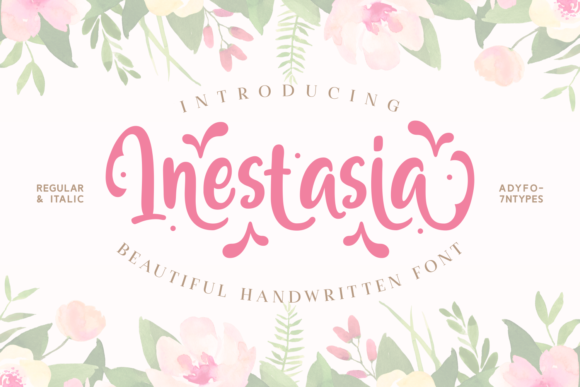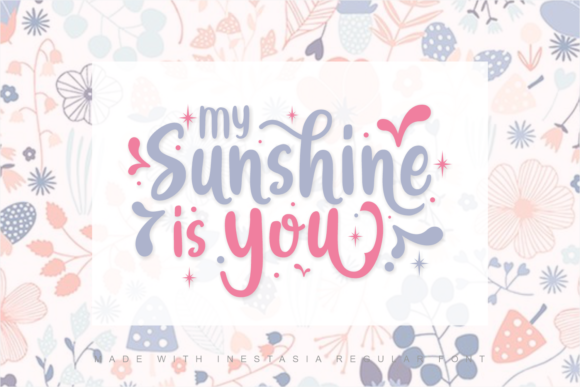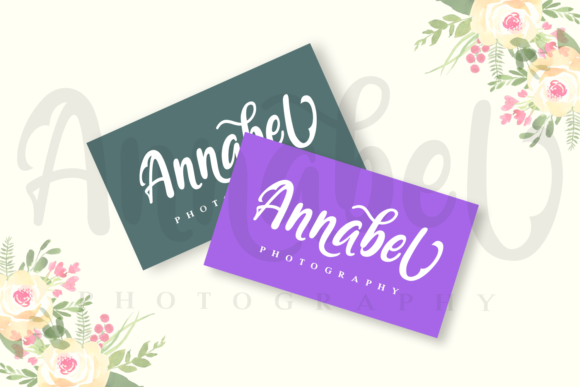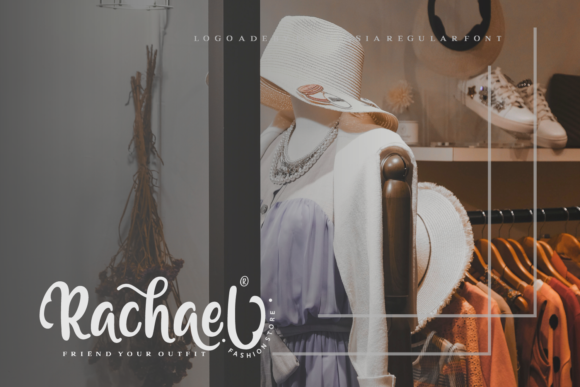
HomeScript FontsInestasia Font Script Fonts Inestasia Font FacebookXPinterestWhatsApp Inestasia Font Poster 2 Inestasia Font Poster 3 Inestasia Font Poster 4 About Inestasia Font Inestasia is a handwritten script font with plenty of dramatic curves. Get inspired by its playful charm! DOWNLOAD NOW People also explored Dracula Font Feel Funny Font Moskova Duo Font White Picket Fence Font Valentine Everyday Font Andmesh Font Christmas Tree Font Scarlettik Font Monthlight 312 0 TagsInestasia Font Previous articleGrandma Suzy FontNext articleKinsley Script Font LEAVE A REPLY Cancel reply Comment: Please enter your comment! Name:* Please enter your name here Email:* You have entered an incorrect email address! Please enter your email address here Website: Save my name, email, and website in this browser for the next time I comment. Personal Use Free Folgore Personal Use Free Read more about this font Advantage Personal Use Free Read more about this font Cranberry Gin Personal Use Free Read more about this font Royal Bengal Tiger Personal Use Free Read more about this font BLOG Top 10 Handwritten Fonts That Elevate Your Designs Top 10 Handwritten Fonts That Will Elevate Your Designs Handwritten fonts bring a warm, personal touch to every creative project. Whether you're designing logos, invitations,... Best Fonts for YouTube Videos: Make Your Thumbnails Stand Out To increase your work productivity, choose the most readable fonts. Where to Buy American Fonts Online in 2024